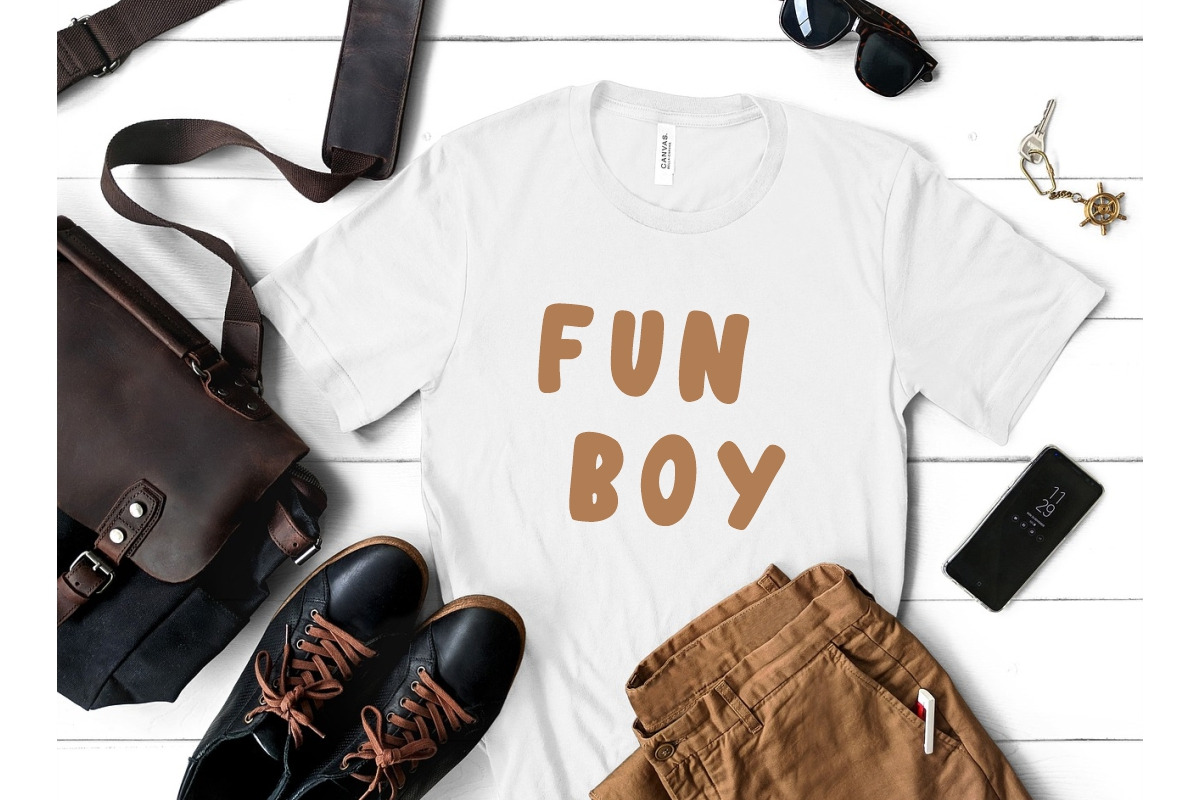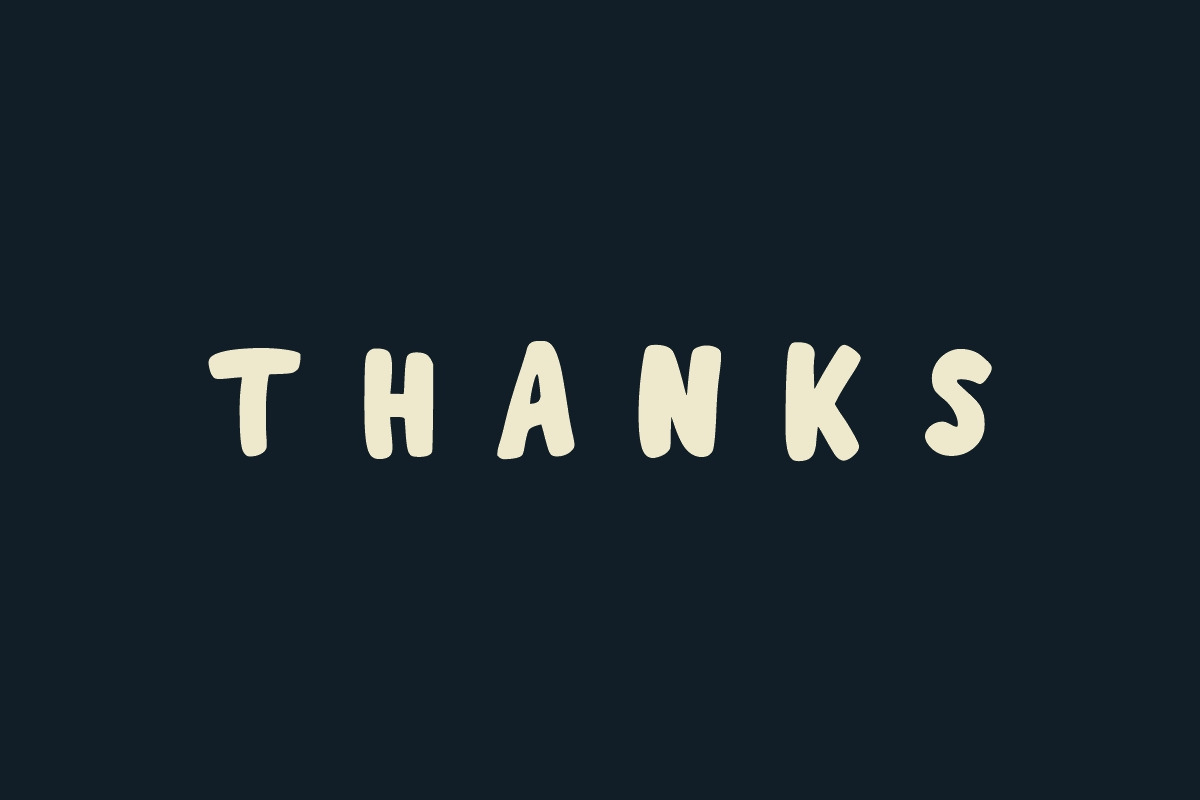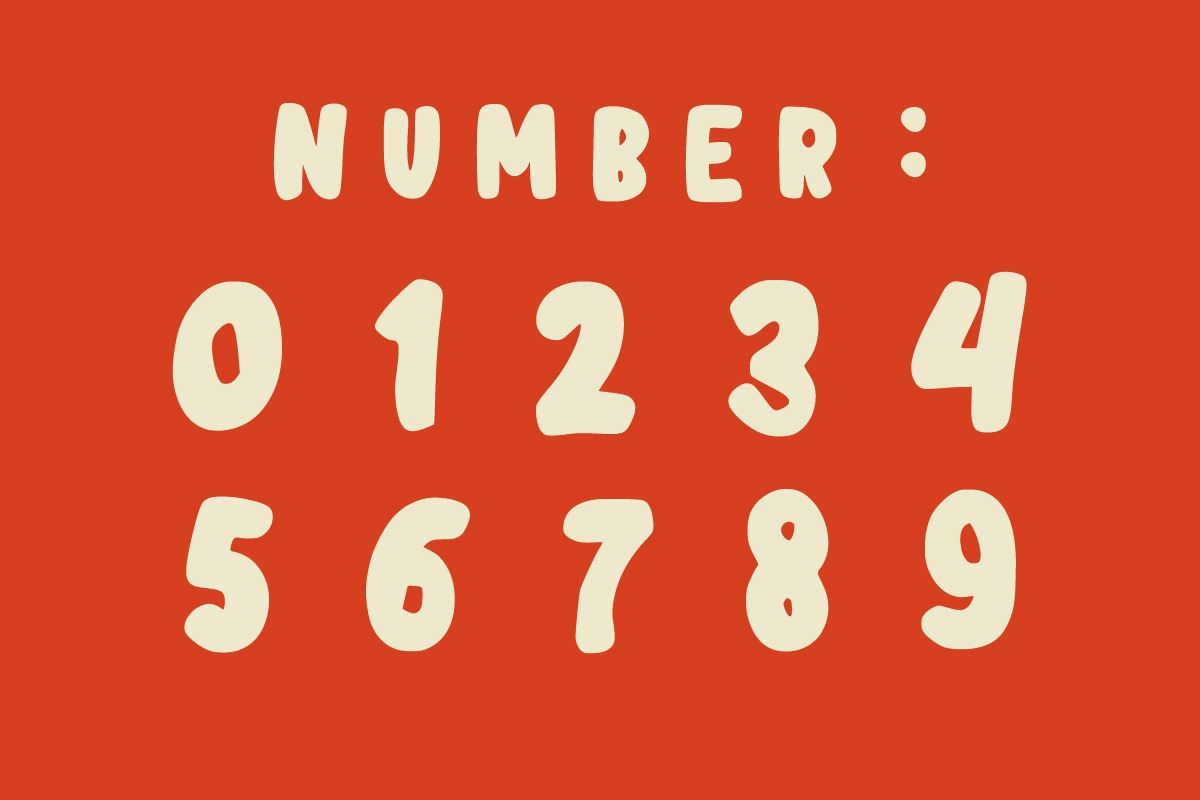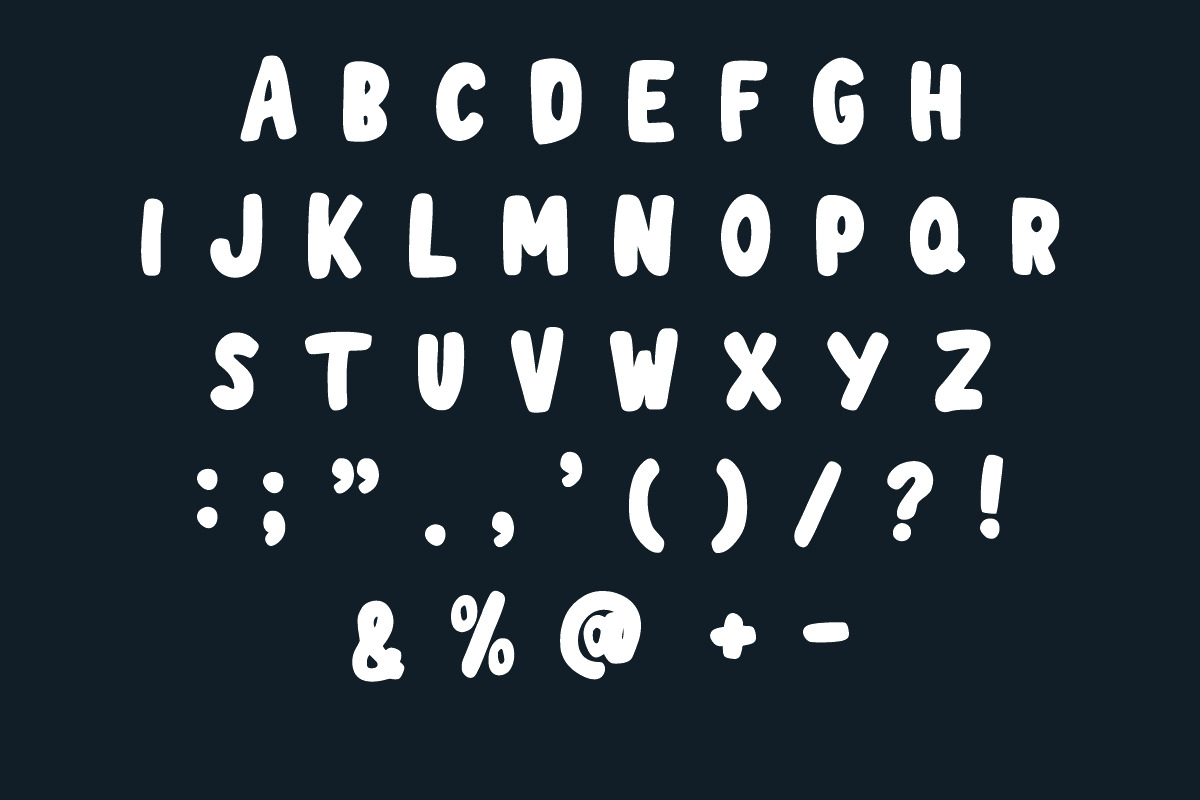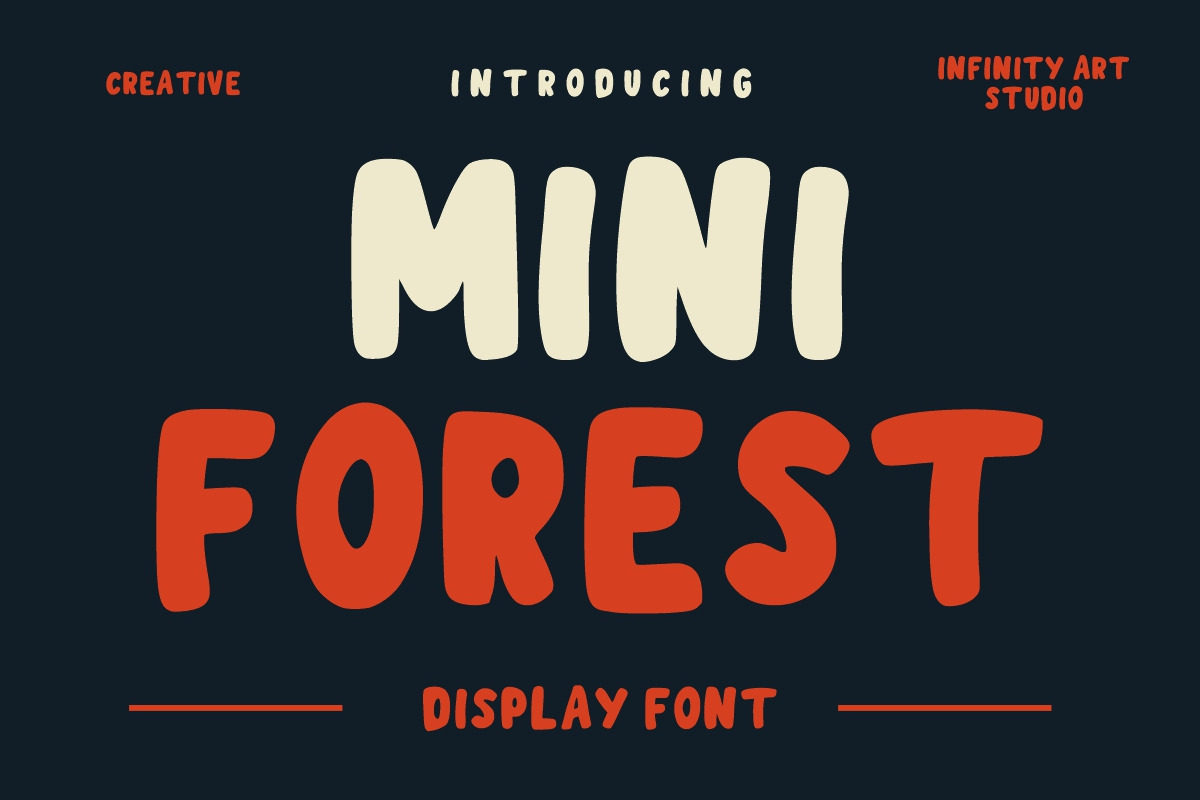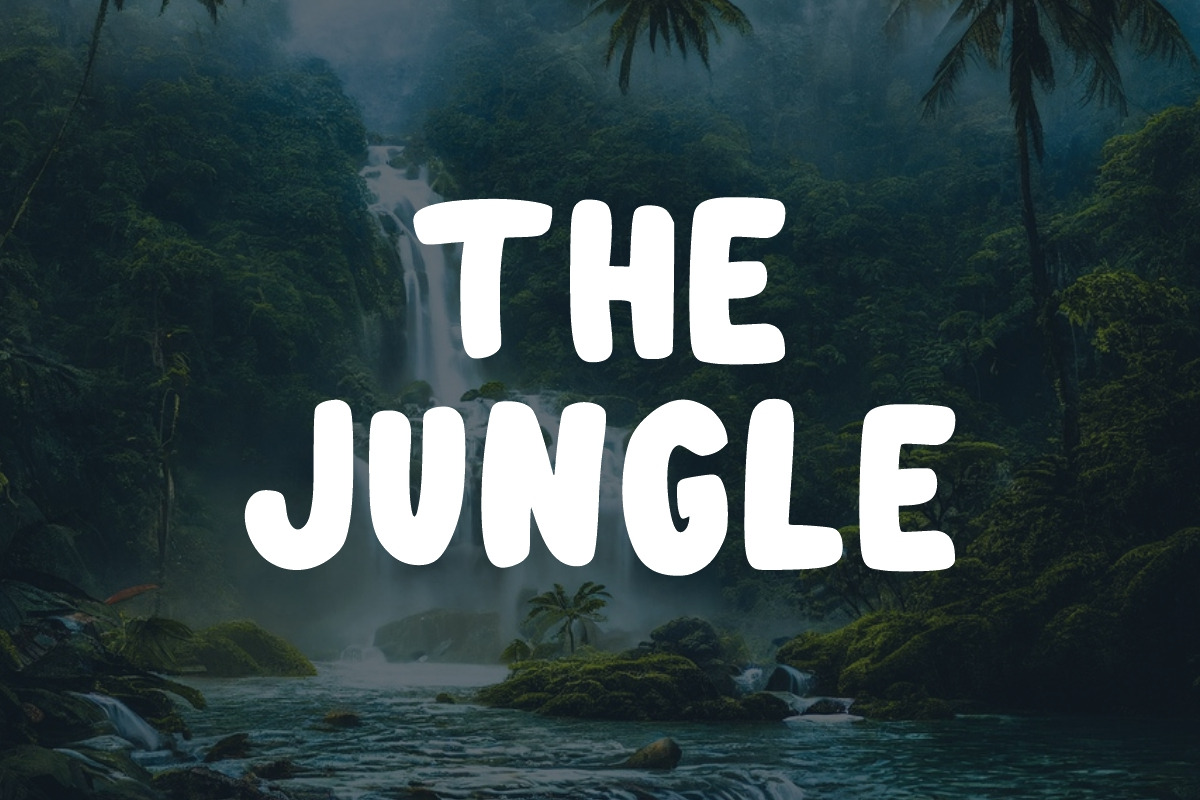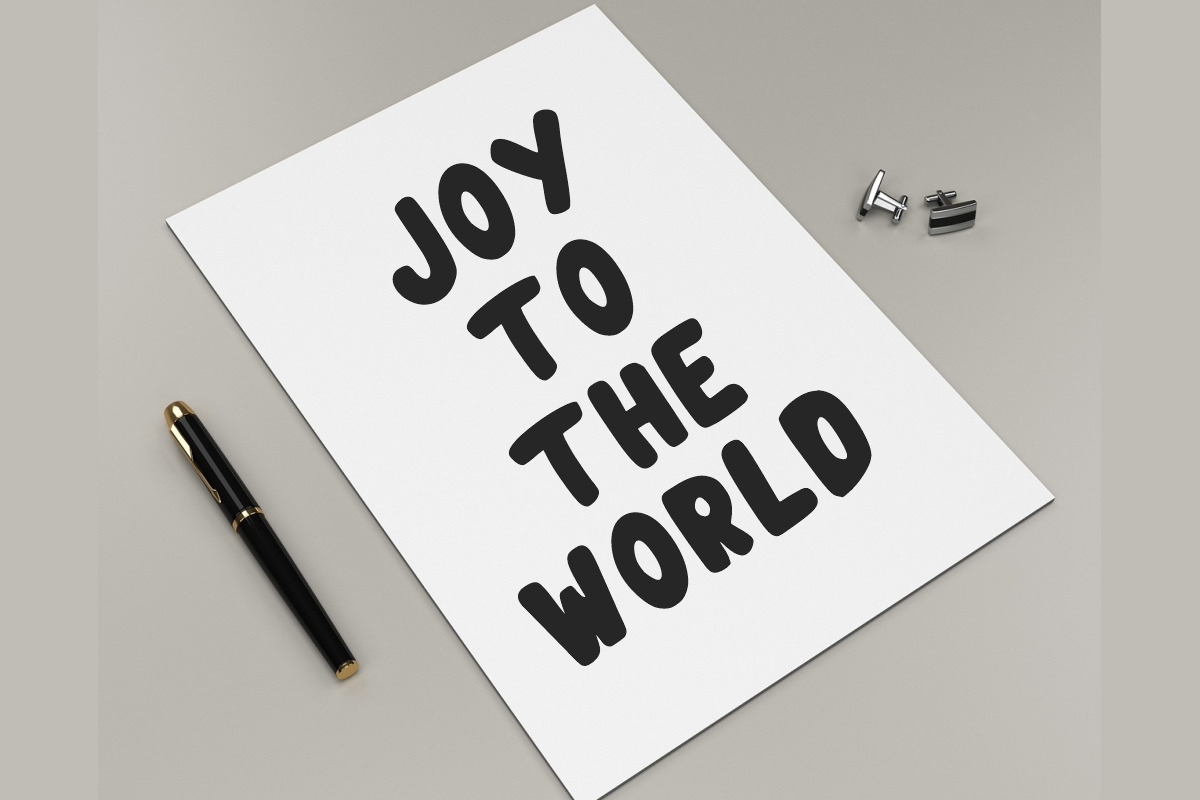
Mini Forest unique font
Mini Forest is a comic style and bold display font. It features a dynamic effect and a unique charm. It is perfect for headlines, sporting events, automotive posters, school posters, text effects, templates, logos, or monogrammed designs.